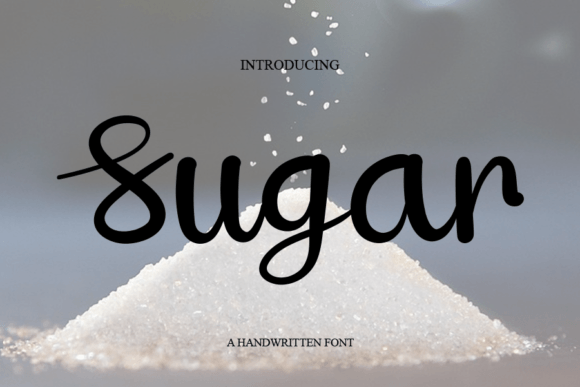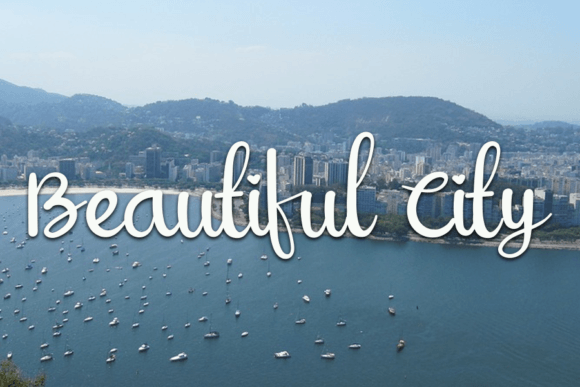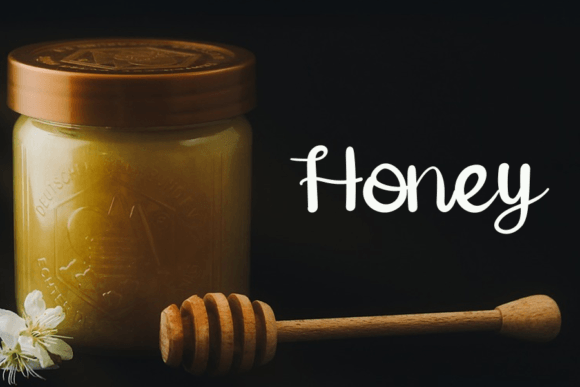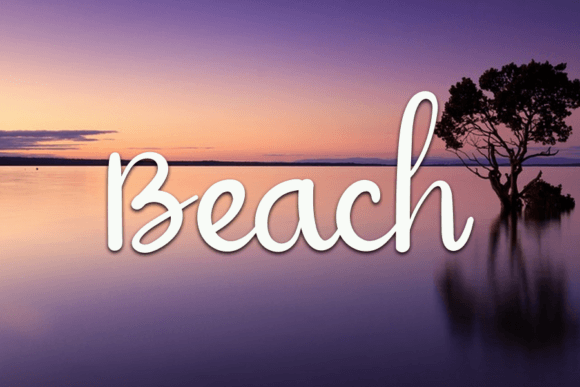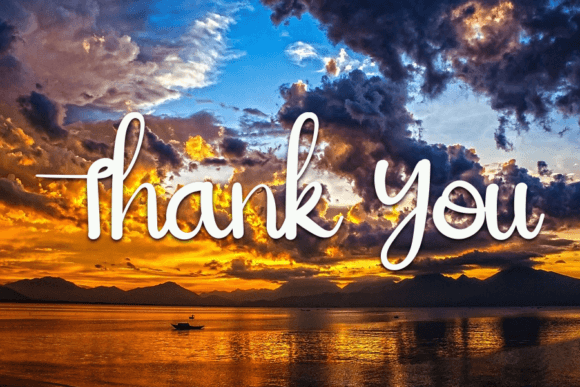
Sugar Font
About Sugar Font
Sugar is a stylish and smooth handwritten script font. Whether you’re using it for crafts, digital design, presentations, or creating greeting cards, this font has the potential to become your favorite font, whatever the occasion!